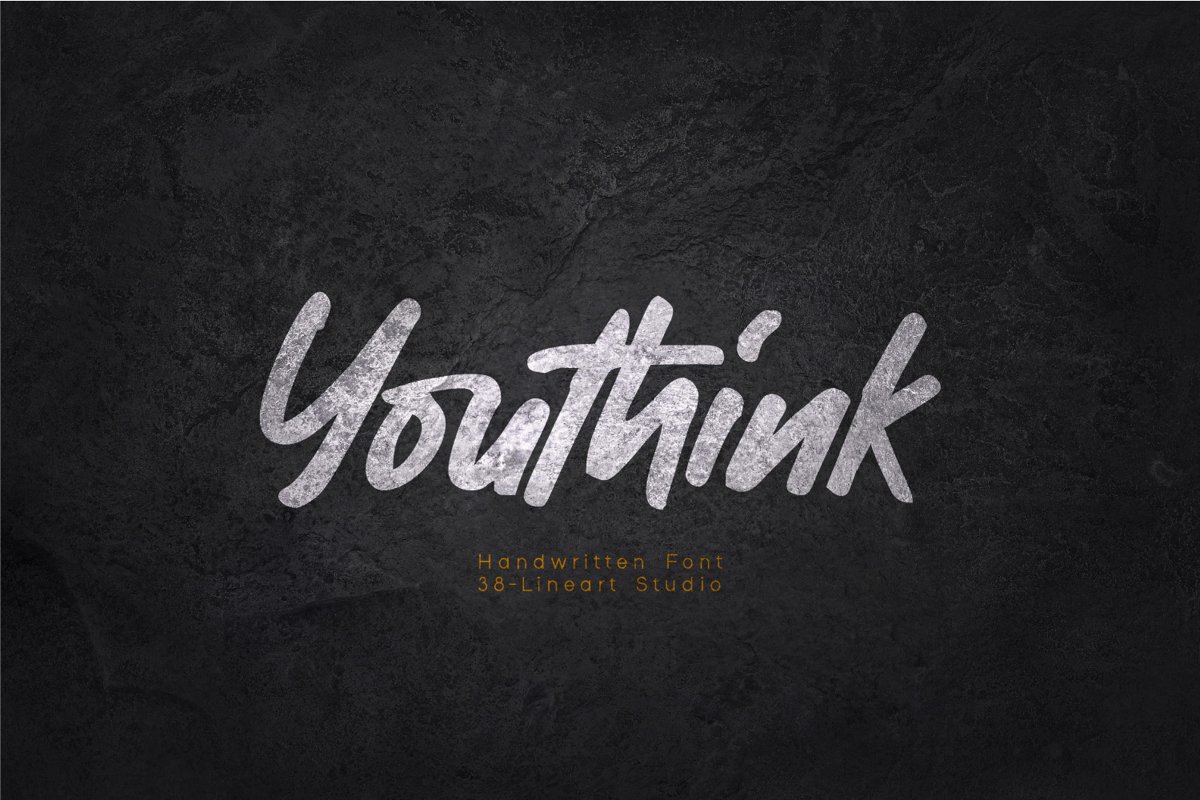
Youthink
'Youthink'. An energetic handwritten font, a reflection of the lifestyle of young people with an expression of what it is. Equipped with unique ligature makes this font appear with unpredicted surprises, worthy of a young soul that always accentuates freedom of work and thought.
In short, this Font is an analogy from young people's creations. YOUTH - THINK - INK. from these words we put it together as Youthink.
Pure handwriting makes this font more special touch, complemented by multi-language support makes it free to appear in any part of the world, plus some alternate makes it more stand out.
This font is very suitable for young and modern designs, very suitable for YouTube broadcasts, brand logos, prints for crafts and t-shirts, adrenaline sports hobbies, Journey Caption and certainly very instagramable.